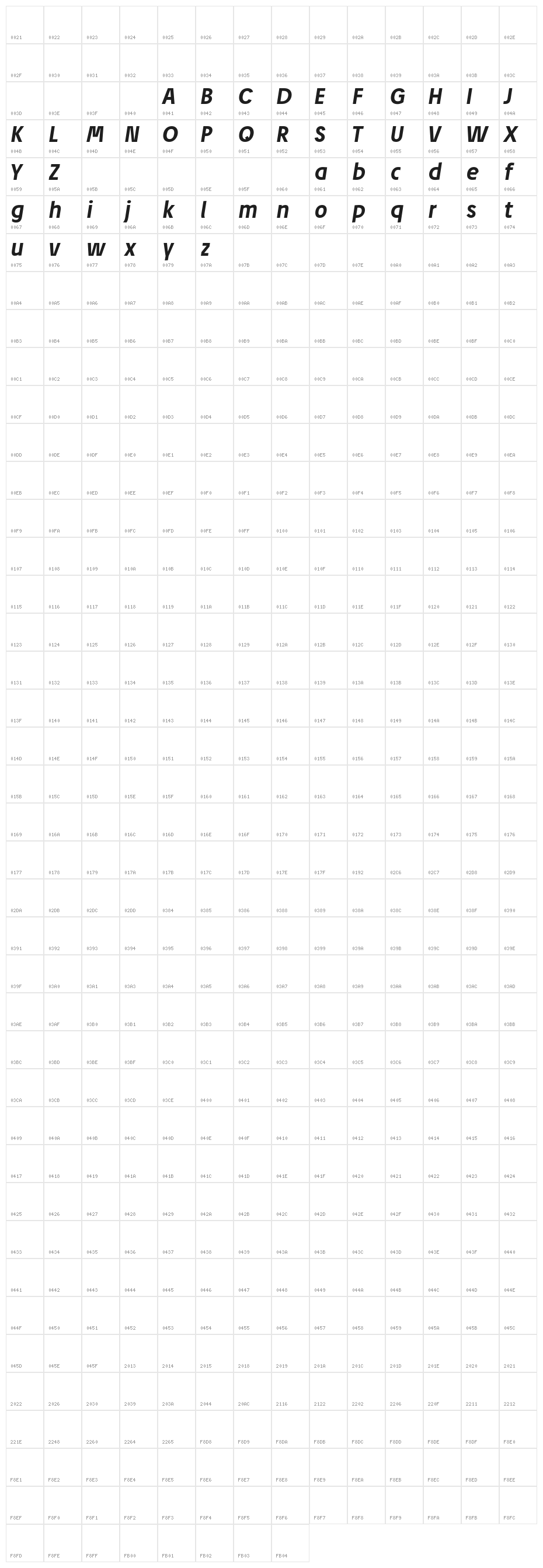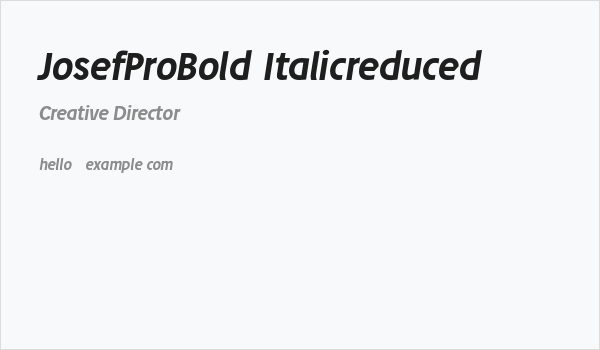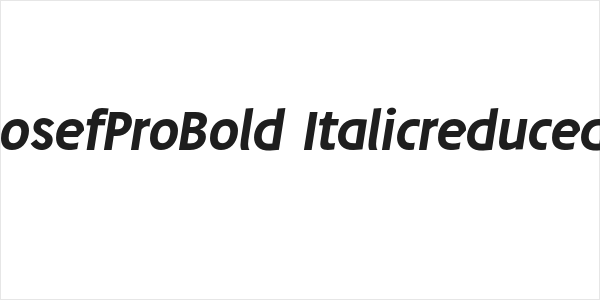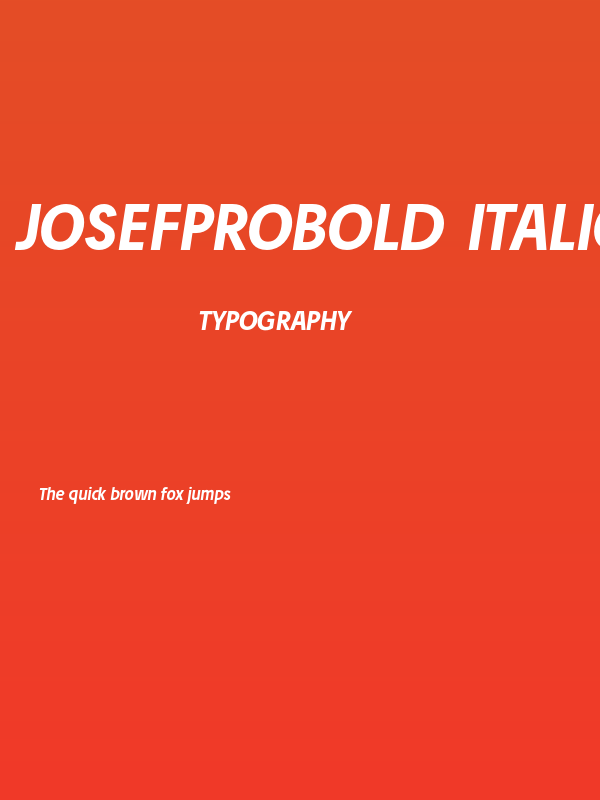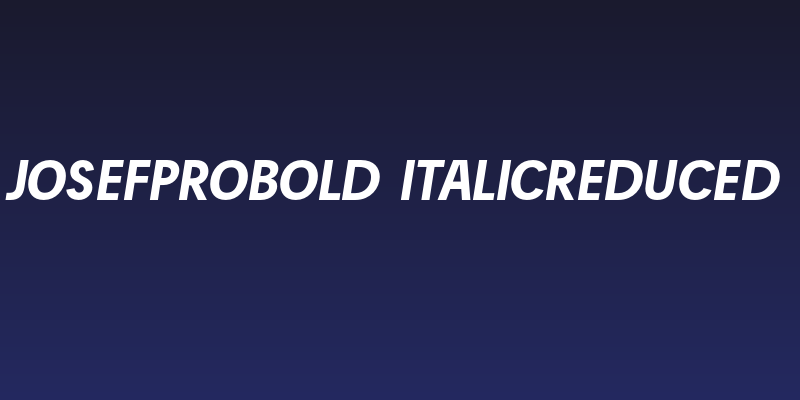
JosefProBold-Italicreduced Font
JosefProBold-Italicreduced Description
This typeface exhibits a bold and italicized style, characterized by its strong and assertive presence. The letters are slightly slanted, adding a dynamic and modern touch to the overall appearance. The strokes are consistent in thickness, providing a uniform and cohesive look. The characters are well-defined with clean edges, making them highly legible. The font maintains a balanced proportion between height and width, ensuring readability across various sizes. Its contemporary design makes it suitable for a range of applications, from digital media to print.
| Use Case | Headlines, Logos, Advertising |
| Proposed Projects | Ideal for branding, advertising, headlines, and digital content where a strong and modern impression is desired. |